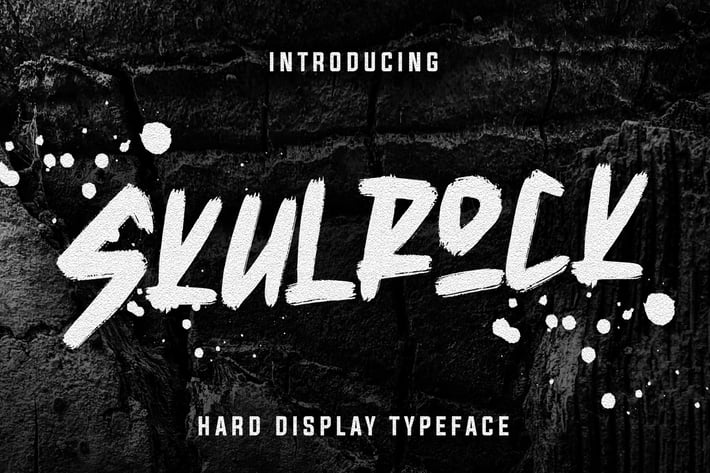
Skulrock Hard Display Typeface
Skulrock is a hard display and rock & roll font for music concert events.
Skulrock is perfect for branding projects, logo, wedding designs, social media posts, advertisements, product packaging, product designs, label, photography, watermark, invitation, stationery and any projects that need handwriting taste.